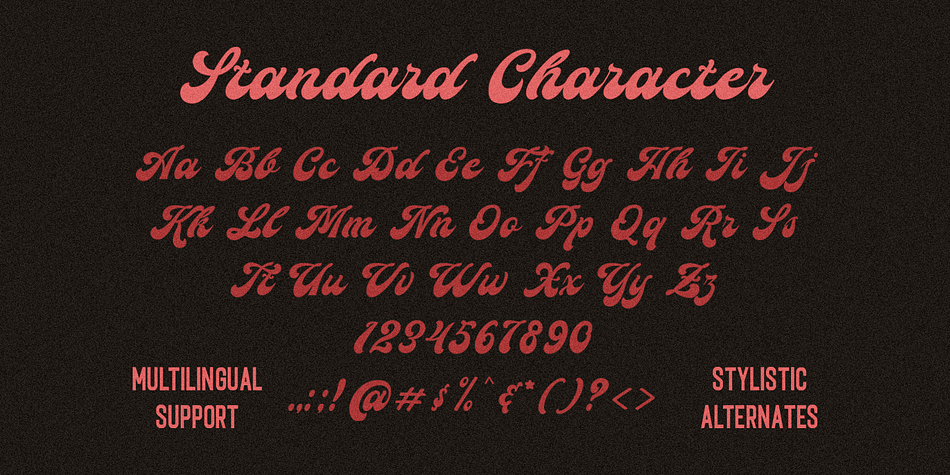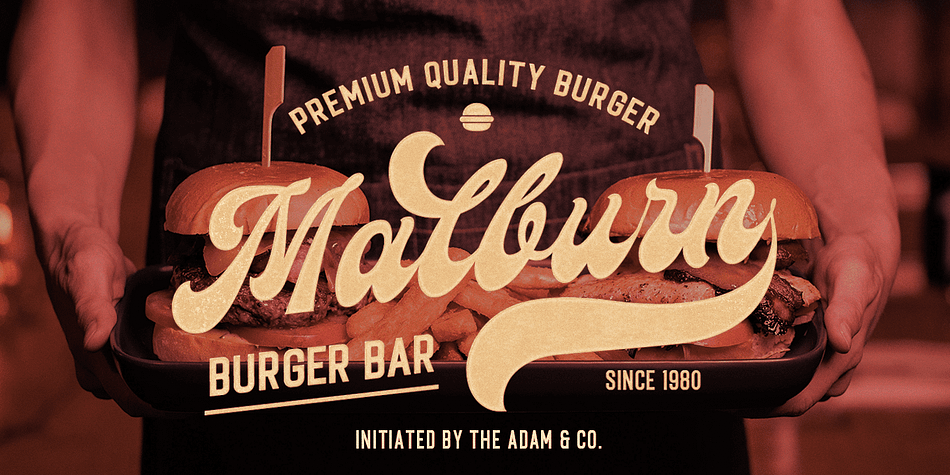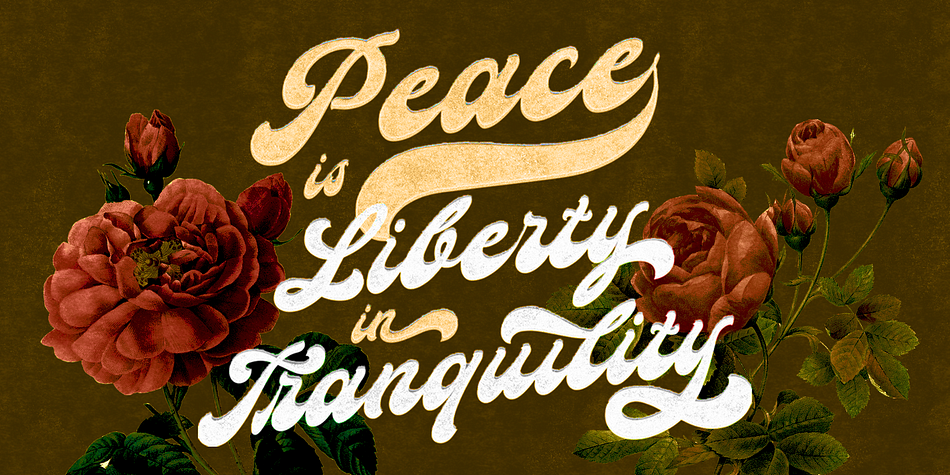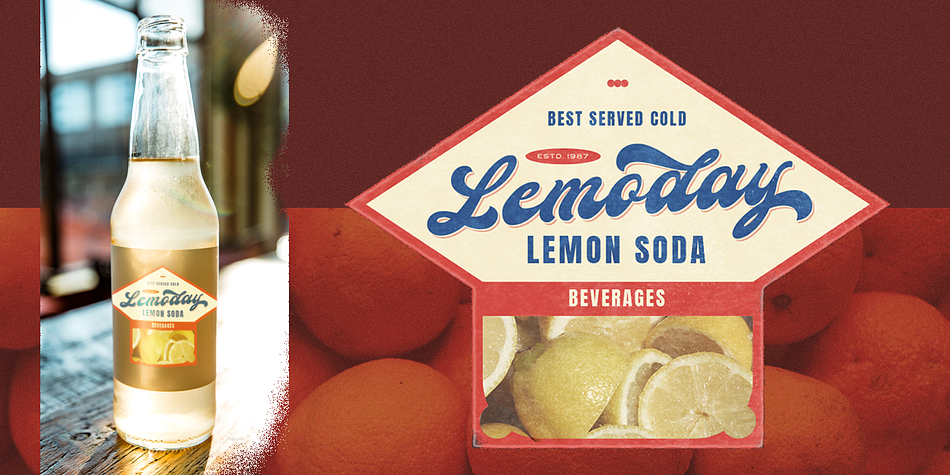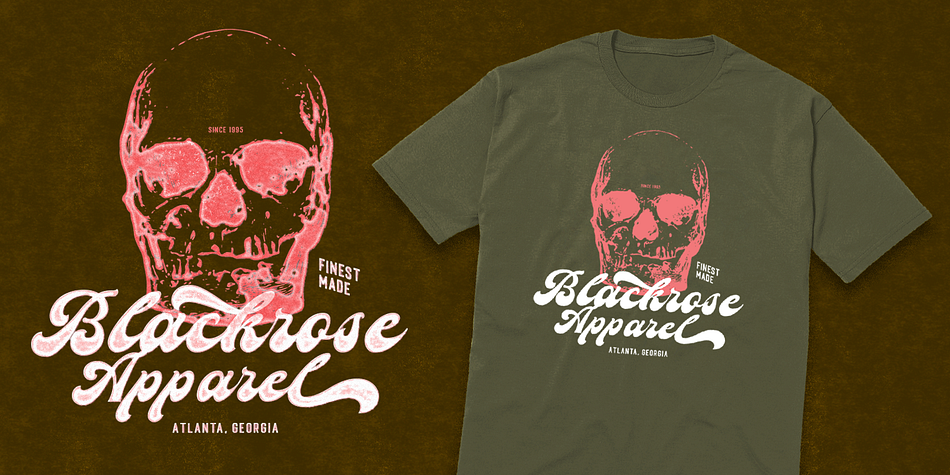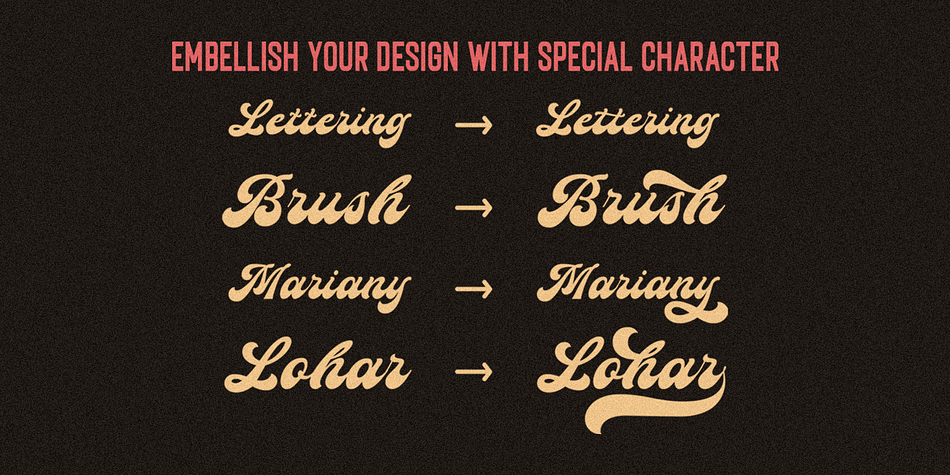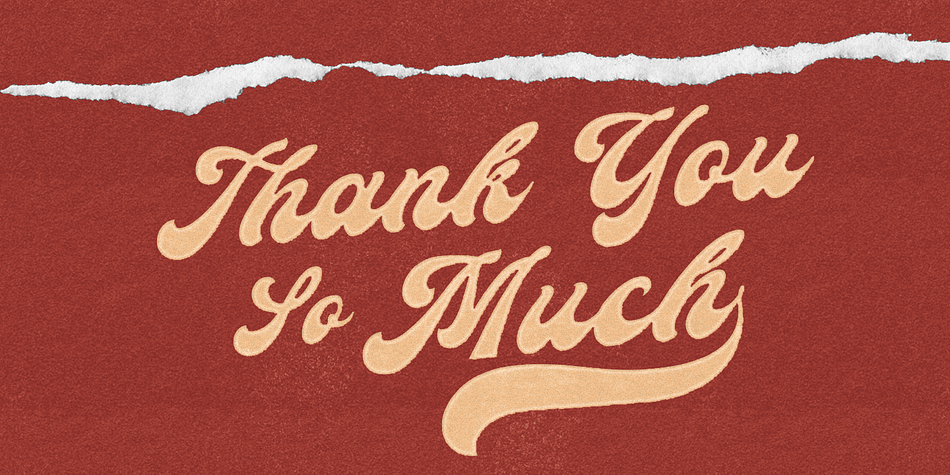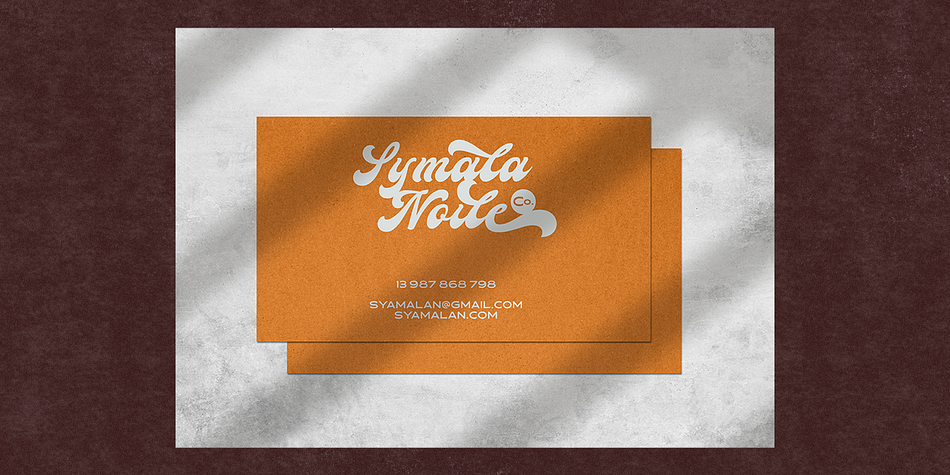
Designed by Hendry Juanda, Bouldster is a retro and script font published by Letterhend Studio.
Introducing, Bouldster - a standout bold script with a touch of nostalgic look and feel. Inspired by 50s 60s signages, this font made to bring back the good ol’ days. This type of font perfectly made to be applied especially in logo, headline, signage and the other various formal forms such as invitations, labels, logos, magazines, books, greeting / wedding cards, packaging, fashion, make up, stationery, novels, labels or any type of advertising purpose.
- alternates / swashes and ligatures